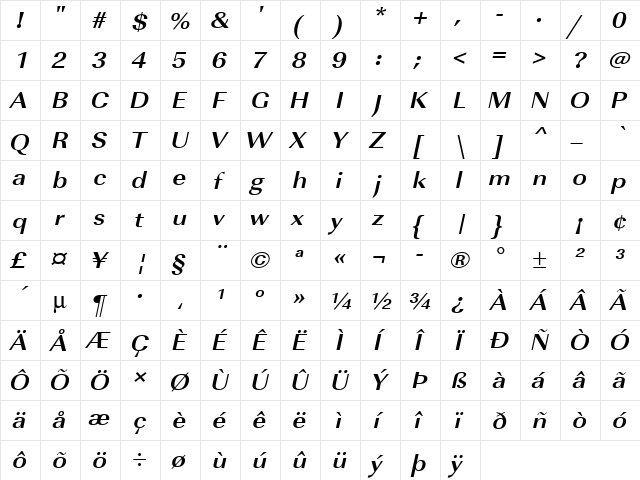
URWImperialTExtWid Bold Oblique
Design Context for URWImperialTExtWid Typeface
URWImperialTExtWid takes a measured approach to typography — its balanced proportions and neutral character make it a reliable workhorse for both digital and print work. The slanted form adds forward momentum and visual energy. Its bold stroke weight gives it real presence on the page.
Pro Tip: Use URWImperialTExtWid for emphasis, pull quotes, and subheadings where its slanted energy can add rhythm to the layout.